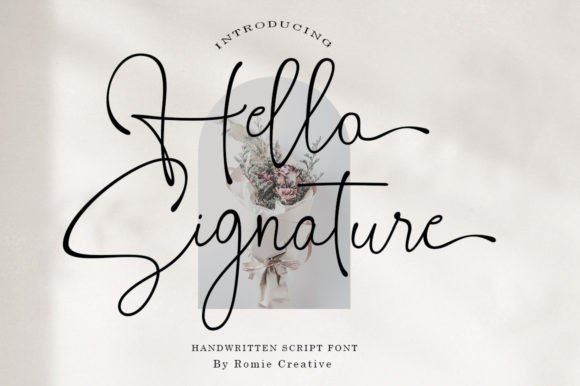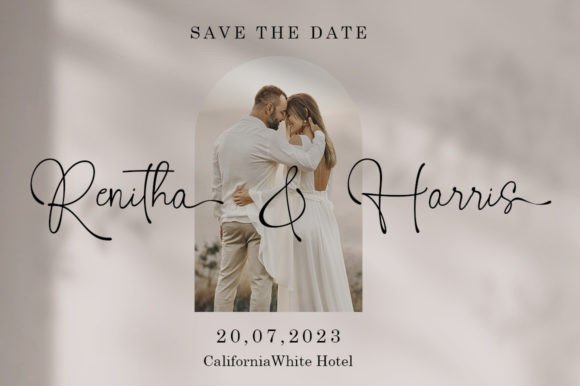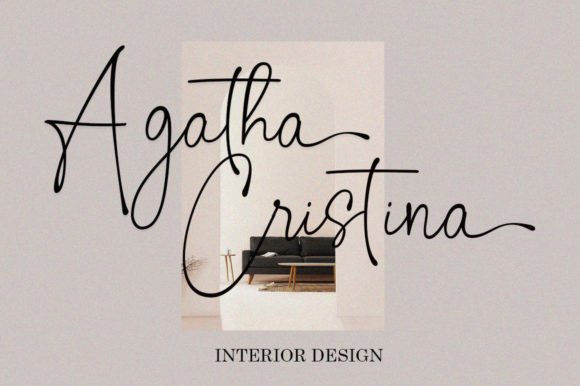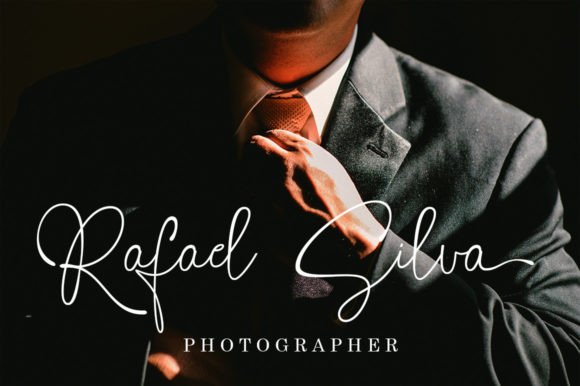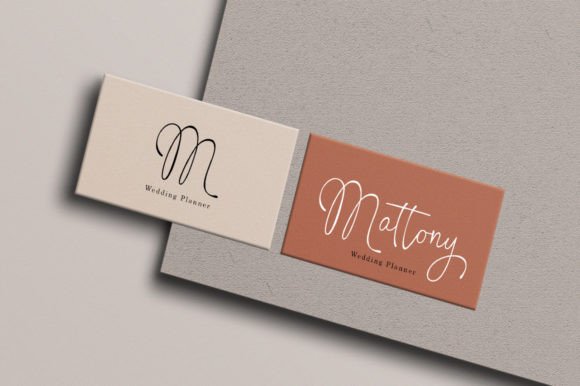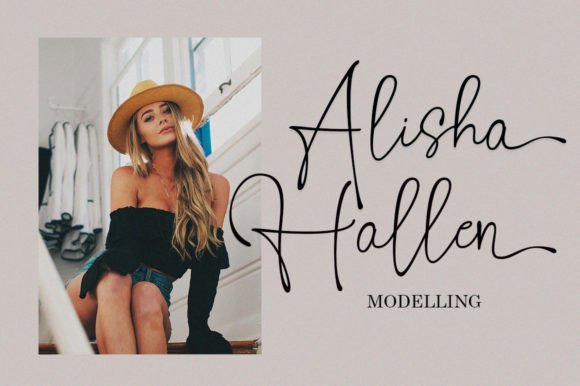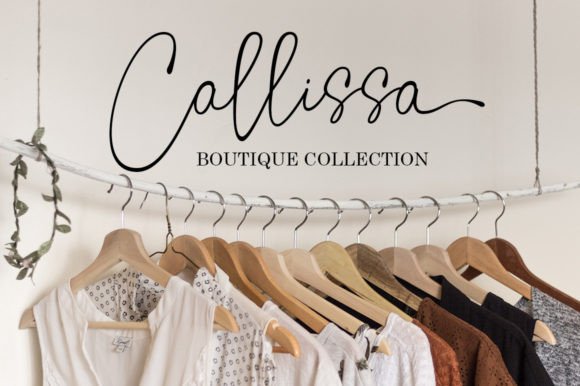
Unleash Your Creativity with Hello Signature Font
Have you ever found yourself staring at a blank page, waiting for the perfect font to come along and spark your creativity? That’s exactly what happened to me the other day, and it was a moment that would change the course of my design project forever. I was searching for a font that would add a touch of elegance and sophistication to my branding materials, and that’s when I stumbled upon the Hello Signature Font.
This beautiful handwritten font is a game-changer for designers like you and me. With its unique feel and stunning impact, it’s sure to elevate any design project and leave a lasting impression. Plus, with its PUA encoding, you can easily access all the amazing glyphs and ligatures that make it so special.
Hello Signature Font Key Features
- Unique Characteristics: The font features a unique, handwritten style with subtle flourishes and variations in letterform, giving it a personal touch.
- Legibility: The font is designed to be highly legible, even at small sizes, making it ideal for use in signatures and other small text applications.
Hello Signature Font Review
I recently had the chance to work with the Hello Signature Font, and I must say it’s a unique addition to any design project. Here are some of its notable features: ✨
- Customizable: The font comes with a range of customizable options, including ligatures and swashes, which allows designers to tailor the look to their specific needs.
- Beautiful scripts: The font’s script elements add a touch of elegance to any design, making it suitable for invitations, certificates, and other formal documents.
- Limited font weights: The font only comes in a few weights, which may limit its use in certain design projects.
- Lack of international support: The font does not include support for non-English languages, which may be a concern for designers working on multilingual projects.
- Not ideal for body text: While the font is perfect for headlines and titles, it’s not the best choice for body text due to its ornate nature.
Overall, I think the Hello Signature Font is a great addition to any design library, but it’s essential to keep its limitations in mind. With the right use case, this font can add a touch of sophistication and elegance to any project.
Use Hello Signature Font for creating personal and professional signatures, business cards, and other graphic design elements. To get the most out of it, experiment with different font sizes, colors, and styles to create a unique look.
- Personal signatures
- Business cards
- Marketing materials
- Graphic
The recommended font size for Hello Signature Font is between 14-24 points, depending on the intended use and audience. A line height of 1.2-1.5 times the font size is recommended to ensure optimal readability and visual balance.